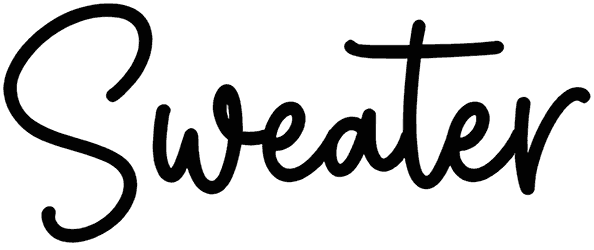
Sweater Font
Who’s ready for a cool Sweater Font that can show you how to be a better designer of Christmas cards, spring posters, bakery social media content, birthday invitations, and other friendly projects like that? You couldn’t have asked for a better surf font to answer your needs that way.
It may be cursive, but don’t you worry about readability. Everything is going to be fine as long as you don’t let the message go on longer than it has to.